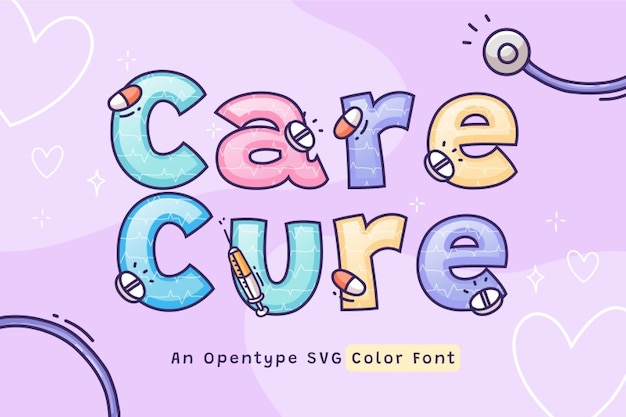
"Care Cure" is a friendly, cartoon-inspired font that captures the essence of medical care with a playful twist. Its rounded, pill-like shapes and clean lines give off a warm, approachable vibe. Ideal for health-related projects, children's medicine packaging, and wellness branding, "Care Cure" brings a lighthearted yet reassuring touch to medical and healthcare designs.